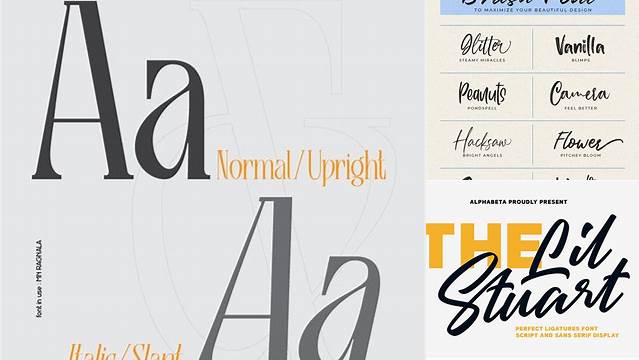
Font Package Free: Best Resources & How To Choose
Are you a designer, blogger, or content creator always on the lookout for the perfect font to elevate your projects? Do you feel frustrated when you can't find the right typeface to match your vision? You're not alone! Typography plays a crucial role in conveying the message and aesthetic of any design, and having access to a diverse and high-quality font library is essential. That's where the magic of font packages free comes in! In this comprehensive guide, we'll dive deep into the world of free font resources, explore the different types of fonts you can find, and give you tips on how to choose the best ones for your needs. So, buckle up and get ready to unleash your creativity with stunning typography, all without breaking the bank!
Why are fonts so important?
Before we jump into where to find the best font packages free, let's quickly discuss why fonts are so darn important. Think of fonts as the voice of your design. Just like how a speaker's tone and delivery can impact the message, fonts influence how your content is perceived. A playful, handwritten font might be perfect for a children's book, but it would feel completely out of place on a corporate website. Similarly, a sleek and modern sans-serif font can convey professionalism and clarity, while a classic serif font might evoke a sense of tradition and elegance. By carefully selecting fonts, you can:
- Enhance readability: A well-chosen font makes your text easy to read, which is crucial for engaging your audience.
- Establish visual hierarchy: Different font styles and sizes help guide the reader's eye and highlight important information.
- Reinforce your brand identity: Consistent use of specific fonts helps create a recognizable and cohesive brand image.
- Evoke emotions: Fonts have the power to influence how people feel when they see your design. A bold and impactful font can create excitement, while a delicate and elegant font can evoke a sense of sophistication.
Choosing the right font is not just about aesthetics; it's about creating an effective and impactful message.
Understanding Font Types
Navigating the world of fonts can feel like deciphering a secret language, but fear not! Let's break down the main font categories to help you understand the basics. This knowledge will be invaluable as you explore font packages free and curate your own collection. The main font categories are:
- Serif Fonts: These fonts are characterized by small decorative strokes, called serifs, at the end of the letters. Think Times New Roman, Garamond, and Georgia. Serif fonts are often associated with tradition, authority, and readability, making them a popular choice for books, newspapers, and formal documents. Imagine the classic elegance of a serif font gracing the pages of a novel, its serifs subtly guiding the reader's eye along each line. The slight flourishes add a touch of sophistication and make them easily readable for extended periods, making it a solid choice for your next project.
- Sans-serif Fonts: As the name suggests, sans-serif fonts lack the serifs found in their serif counterparts. Helvetica, Arial, and Open Sans are some well-known examples. Sans-serif fonts tend to have a cleaner, more modern look, making them suitable for websites, logos, and other designs where a contemporary feel is desired. These fonts prioritize clarity and minimalism, often making your designs feel fresh and accessible. For websites and digital content where readability on screens is crucial, sans-serif fonts are an excellent pick.
- Script Fonts: These fonts mimic the flowing strokes of handwriting. They can range from elegant and formal scripts to casual and playful ones. Think Brush Script, Pacifico, and Lobster. Script fonts are often used for invitations, logos, and designs where a personal touch is desired. When considering font packages free, script fonts can add a unique touch to your projects, provided they are used sparingly and appropriately. Picture the graceful strokes of a script font adding a touch of elegance to your wedding invitations. However, be mindful of readability; script fonts are best used for headings or short phrases rather than extensive blocks of text.
- Display Fonts: Display fonts are designed to be eye-catching and attention-grabbing. They often have unique and distinctive characteristics, making them ideal for headlines, posters, and other large-format designs. Examples include Impact, Bebas Neue, and ChunkFive. These fonts are all about making a statement. They come in a myriad of styles, from bold and blocky to whimsical and decorative, allowing you to inject personality into your designs. While not suitable for body text, they can be the perfect choice for branding or accentuating key elements in your project.
- Monospace Fonts: Monospace fonts have letters and characters each occupying the same amount of horizontal space. Courier New and Monaco are a couple of classic examples. This unique feature makes them ideal for coding, technical documents, and situations where character alignment is important. The consistency of monospace fonts ensures that each character aligns perfectly, making them invaluable for programming environments and tabular data. When you delve into font packages free, consider these for your more technical applications.
Understanding these font categories is the first step in choosing the perfect font for your project. Now, let's dive into where you can find fantastic font packages free!
Where to Find Amazing Font Packages Free
The internet is a treasure trove of resources, and that includes a vast collection of font packages free. However, it's crucial to be discerning and ensure you're downloading fonts from reputable sources to avoid copyright issues or malware. Here are some of the best places to find high-quality free fonts:
Finding the perfect font packages free can be a game-changer for your design projects. With the abundance of resources available online, you can create stunning visuals without breaking the bank. Remember to explore the different font categories, choose fonts that align with your brand and message, and always pay attention to licensing terms. By following these tips, you'll be well on your way to creating captivating designs with the perfect typography. So go forth, explore the world of free fonts, and unleash your creativity!